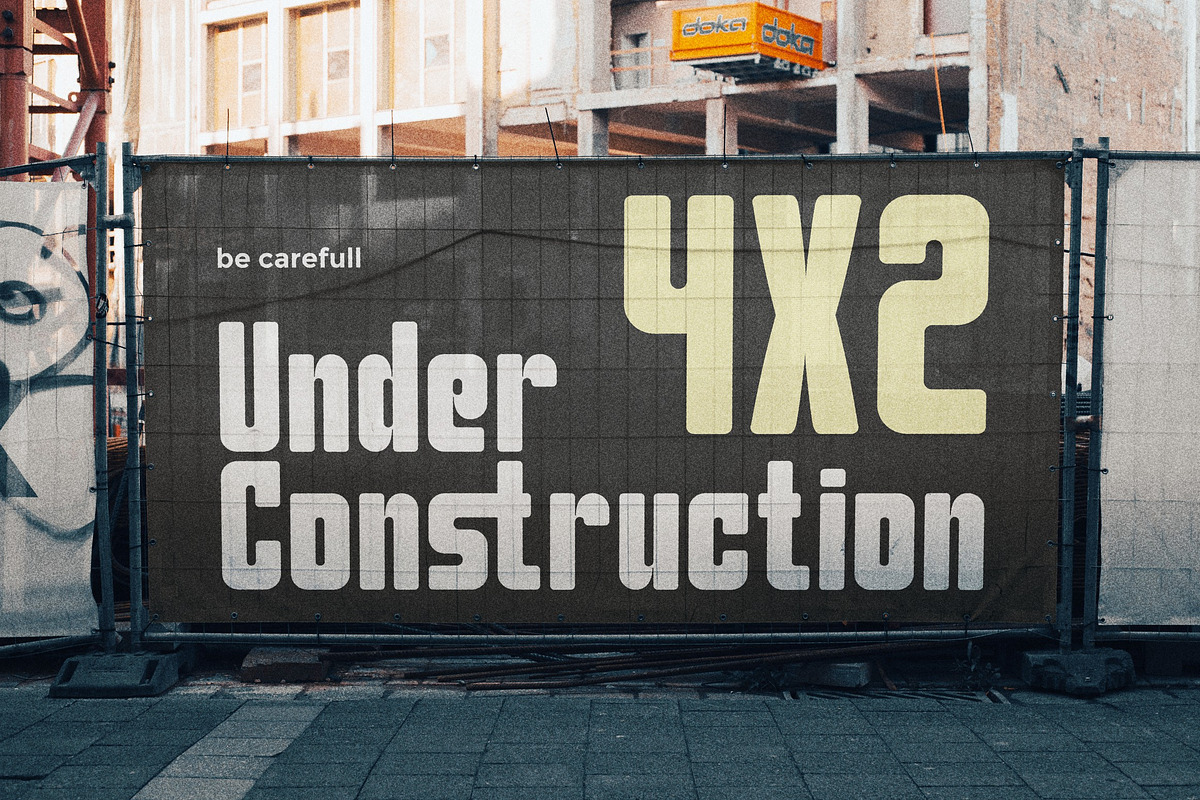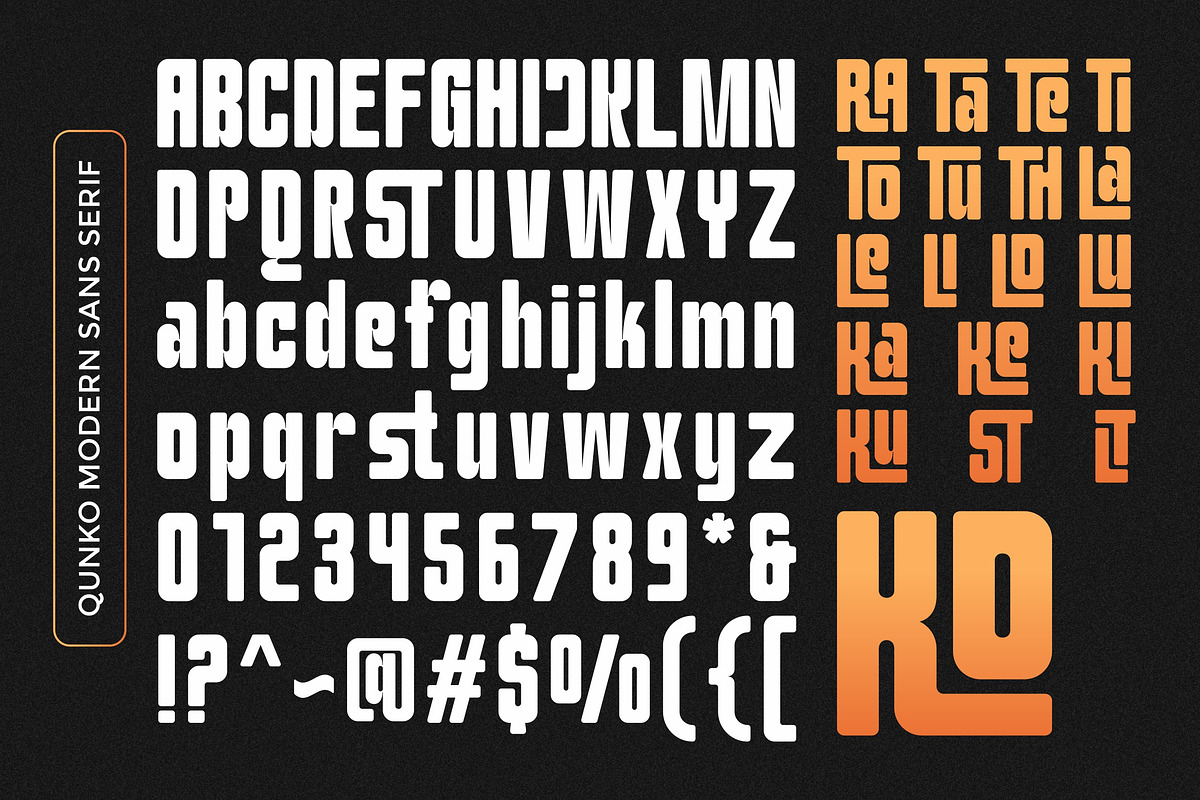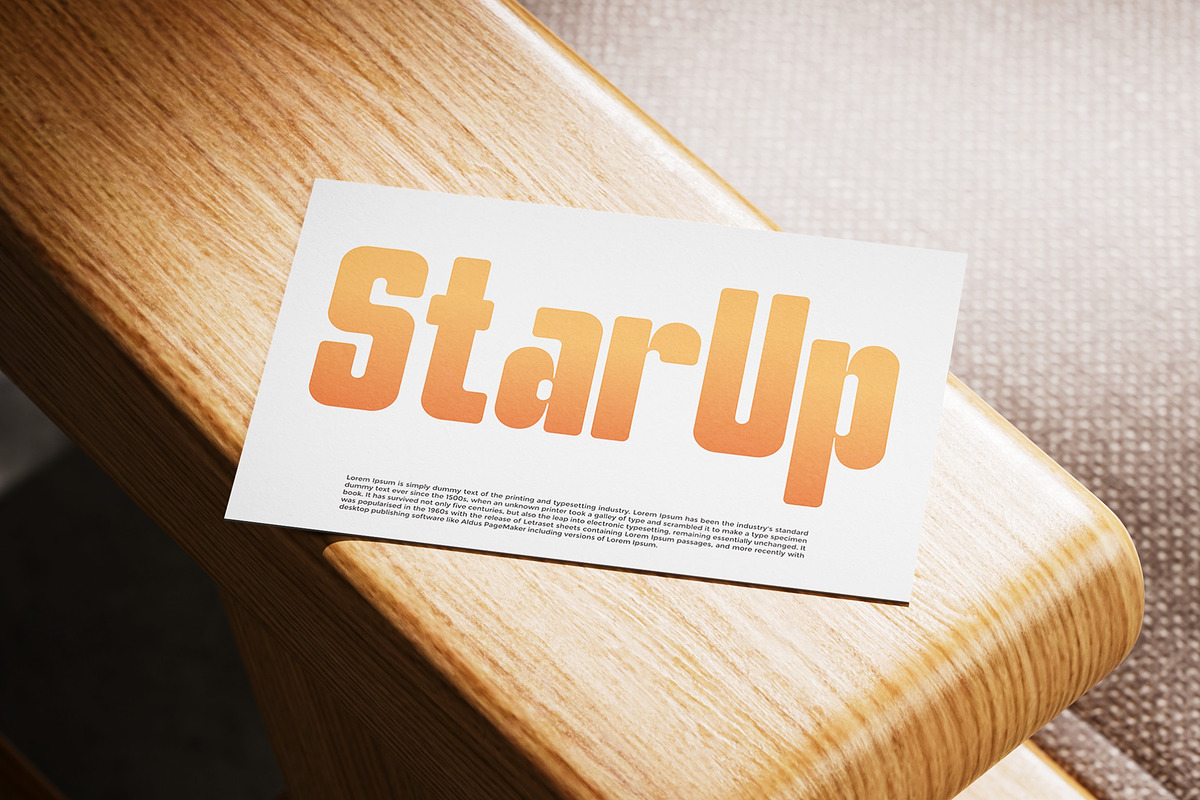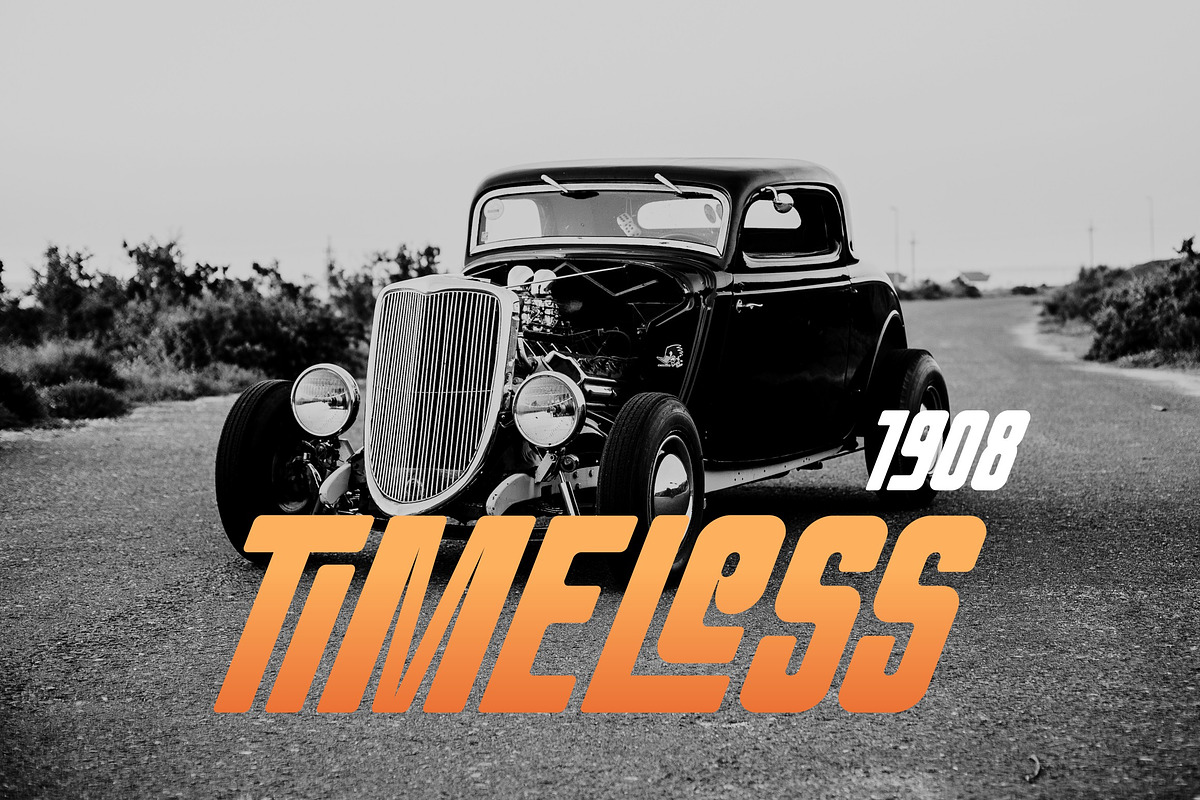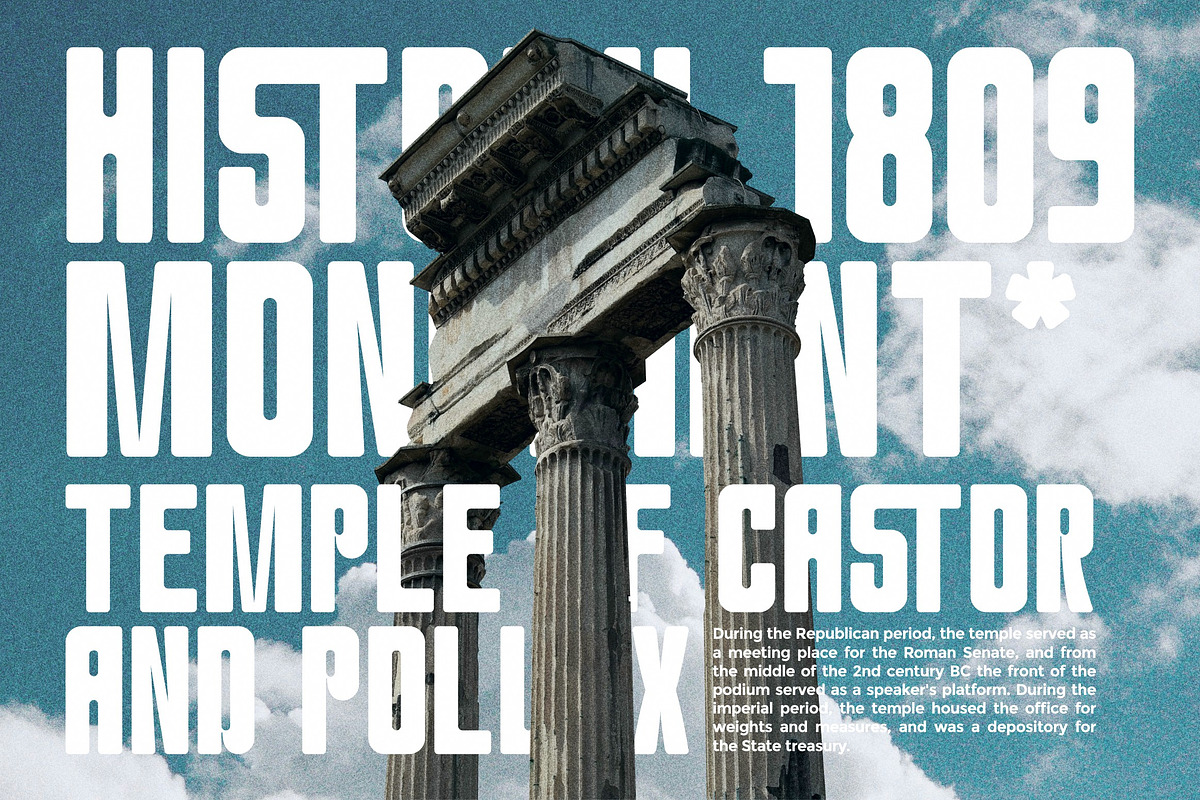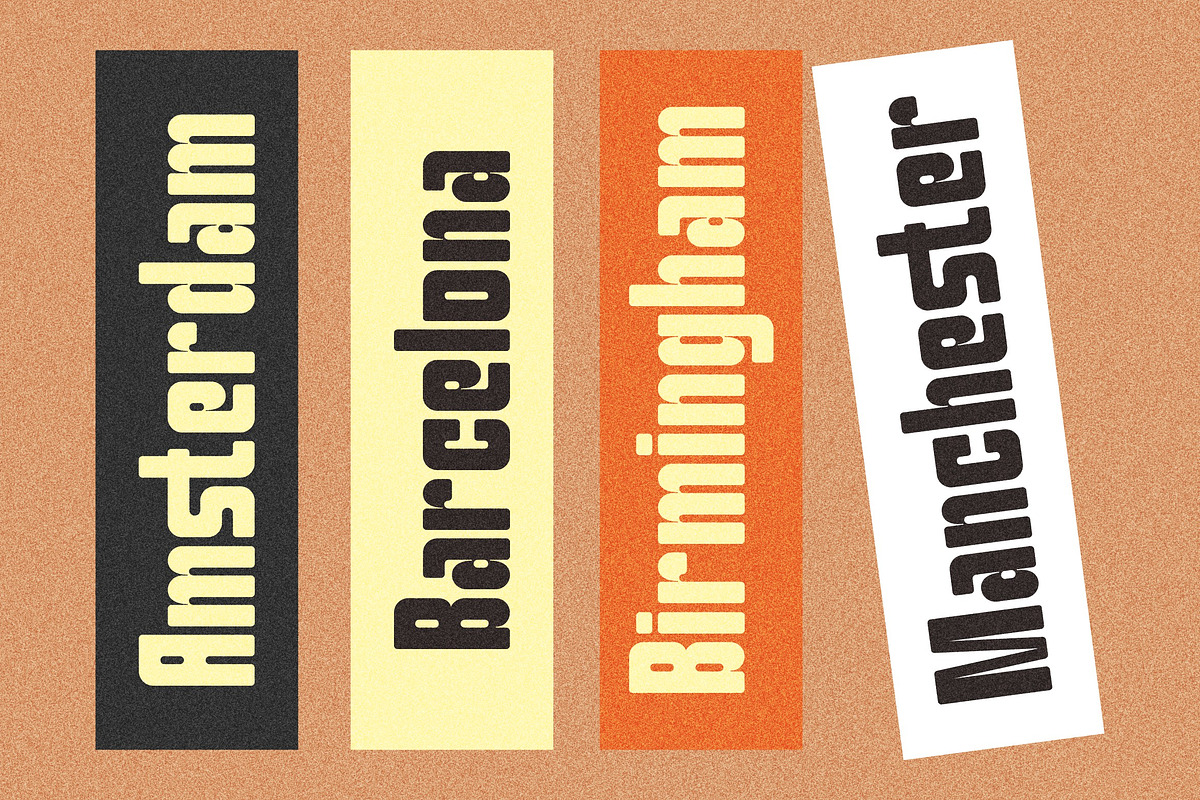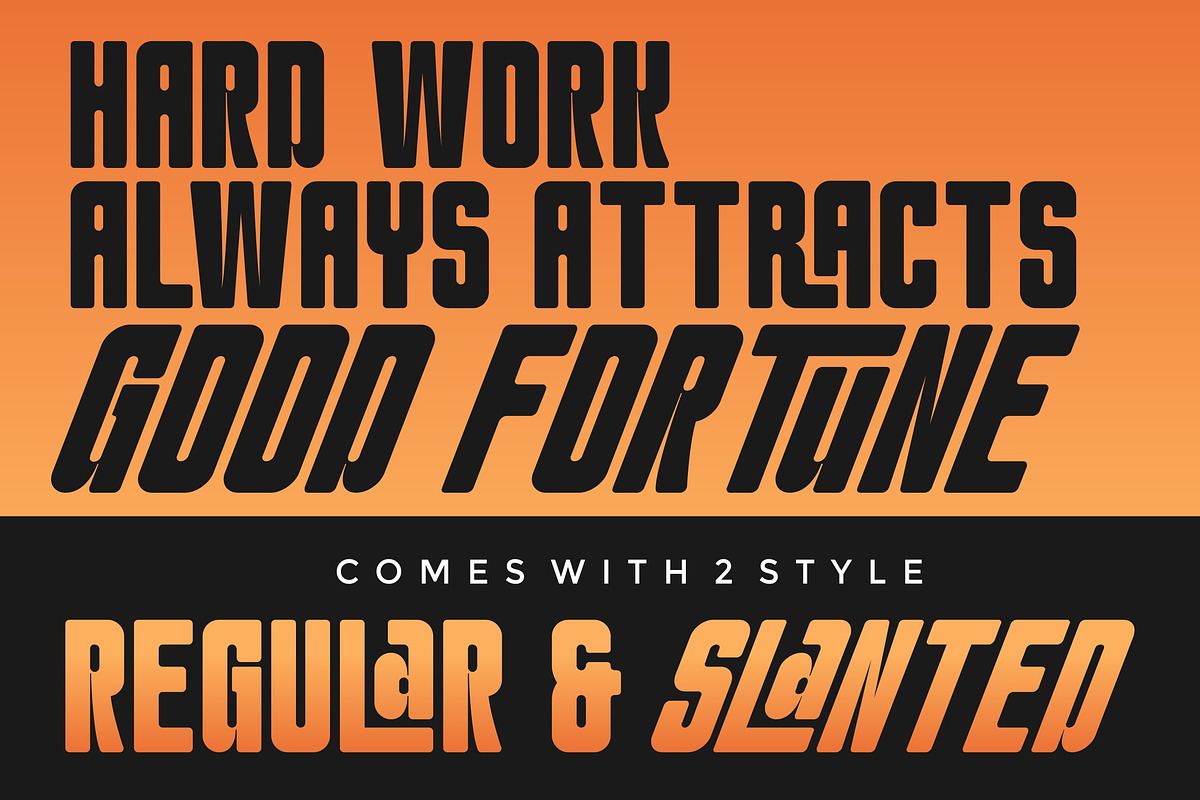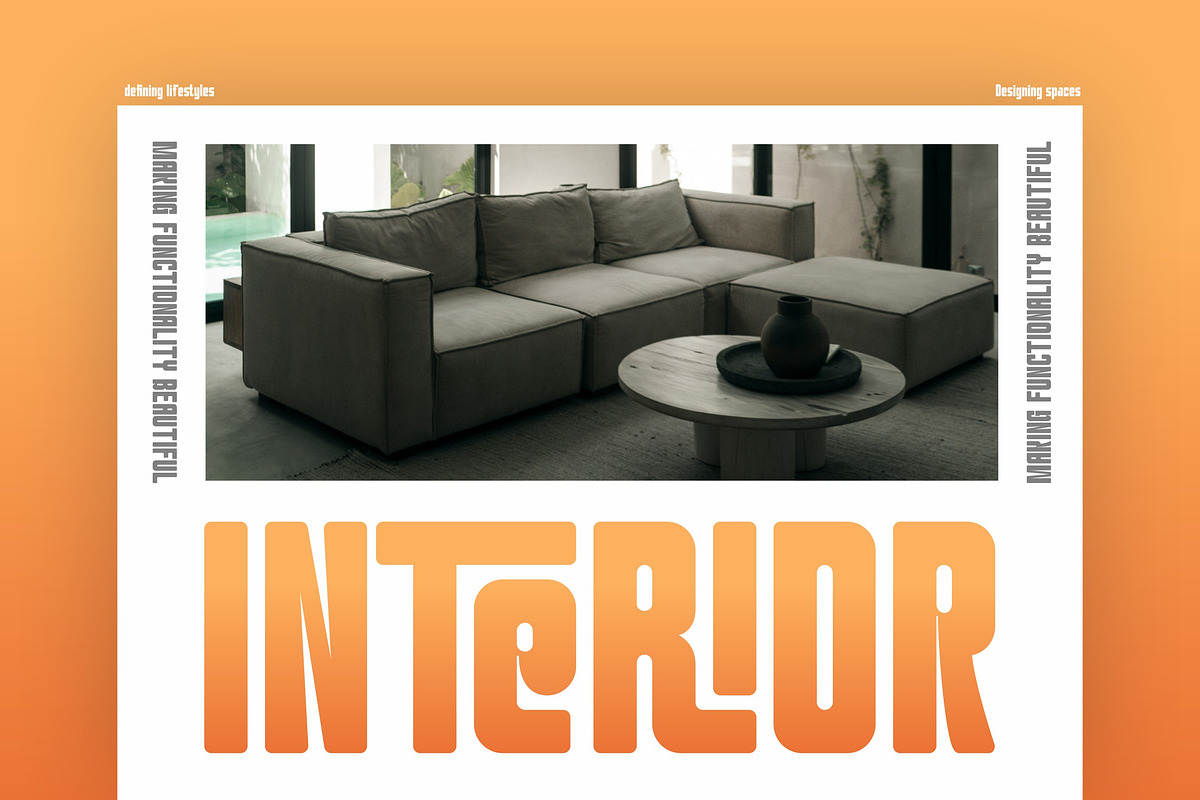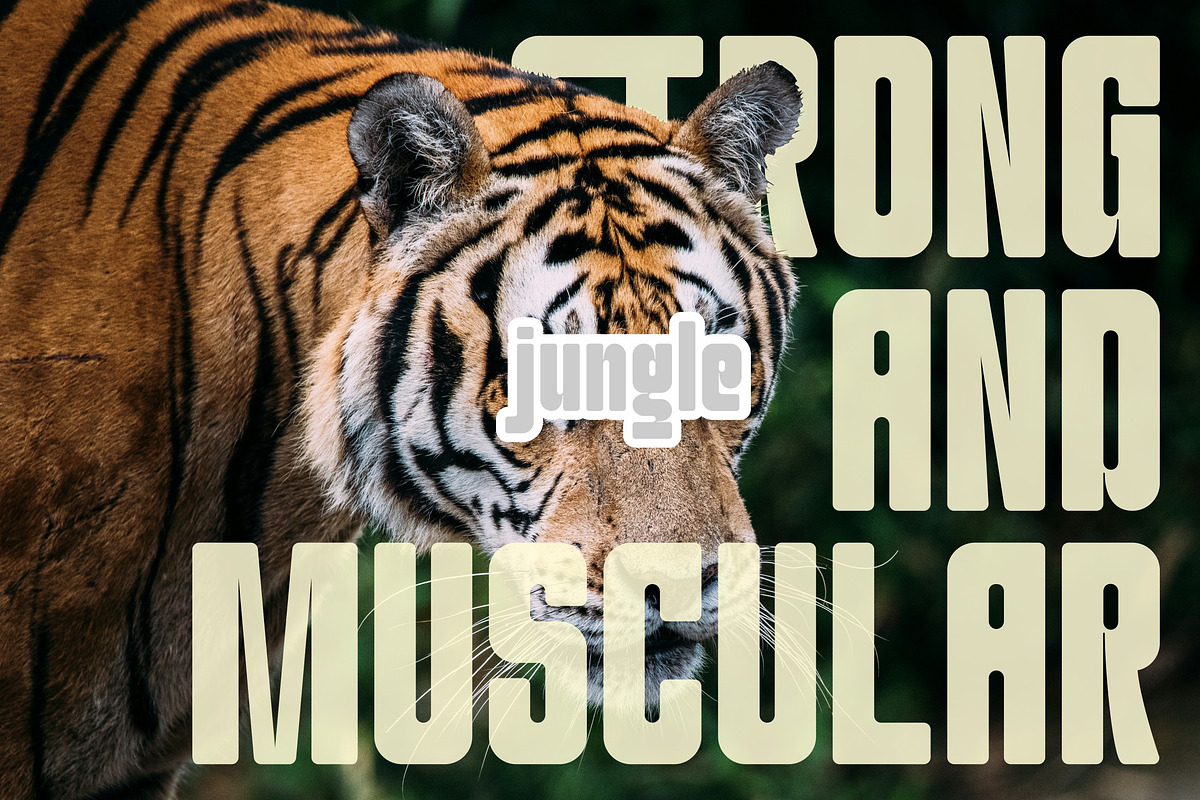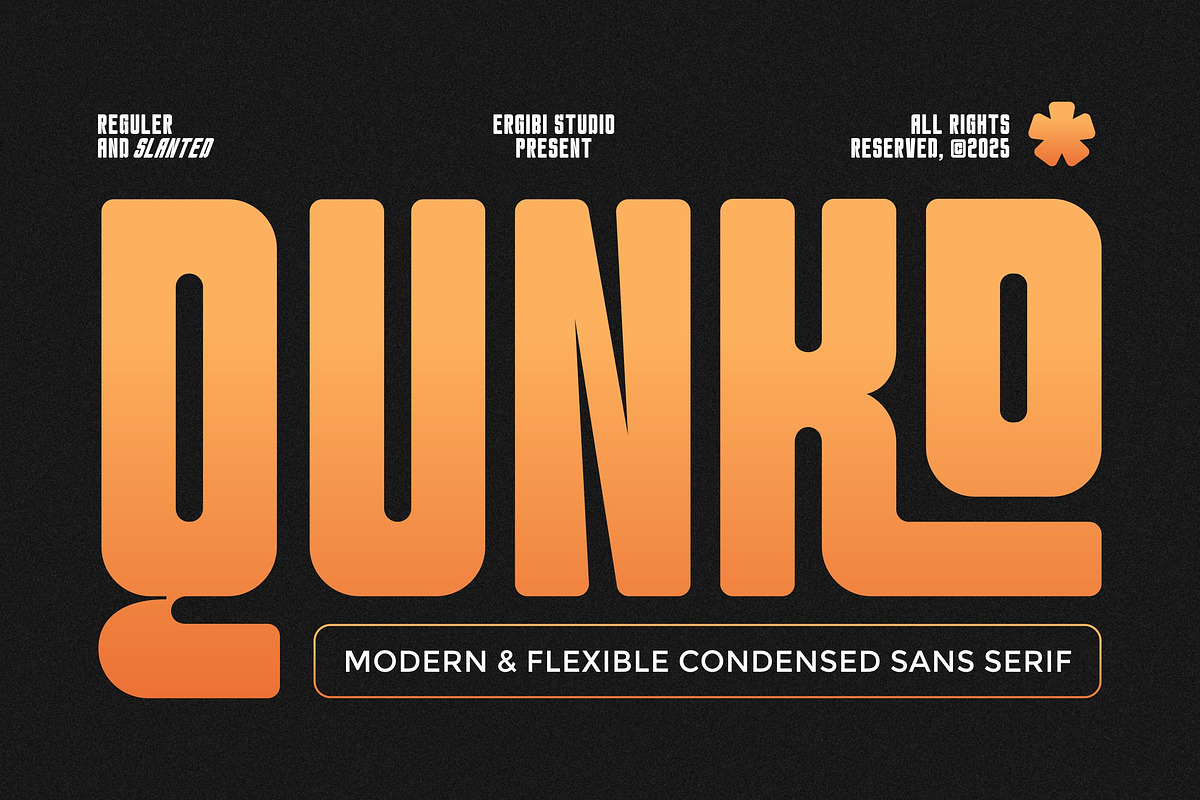
Qunko - Condensed Sans
Qunko is a modern, flexible condensed sans serif typeface designed to bring clarity, style, and efficiency to any layout. Its clean lines and compact letterforms make it perfect for projects that demand strong visual impact without sacrificing readability.
Crafted with a contemporary aesthetic, Qunko adapts effortlessly across branding, headlines, posters, editorial design, and digital interfaces. The condensed structure allows more content to fit in tight spaces while maintaining a sleek and confident presence.